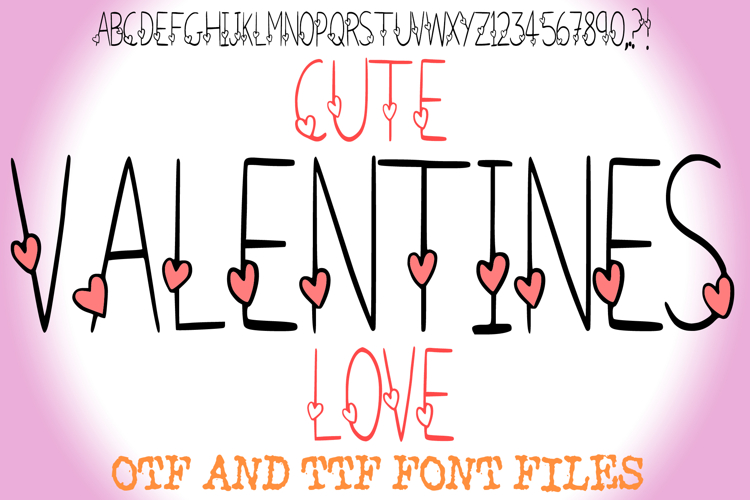
Cute Valentines Love Font Romantic Hand-Drawn Heart Letters
Give your projects a touch of romantic charm with the Cute Valentines Love Font! This adorable, handmade display typeface features tall, clean uppercase letters designed with a whimsical twist: each vertical stroke is accented by a sweet, hand-drawn pink heart. The contrast between the sleek black lettering and the soft pink hearts creates a playful, eye-catching aesthetic that is perfect for the season of love.
Capturing a neat yet artisanal "doodled" feel, this font is ideal for creators who want to add a heartfelt touch to their work. Whether you are designing custom Valentine's cards, teacher resources, or romantic social media graphics, the Cute Valentines Love Font provides a cohesive and charming look..